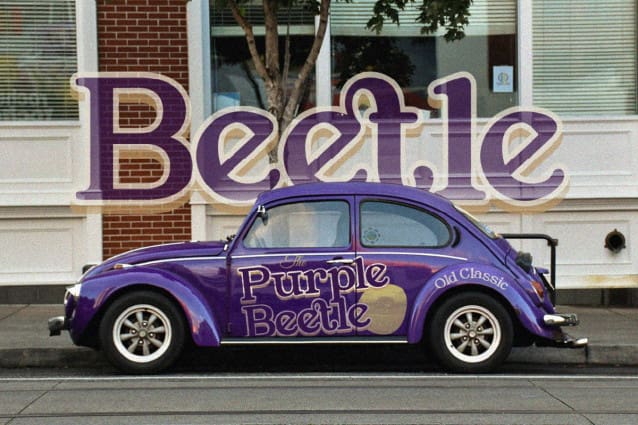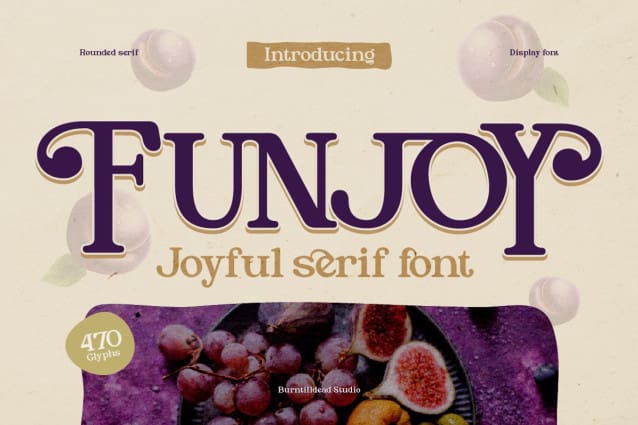
Funjoy Font
Funjoy Font! This font brings joyful and playful vibes. Funjoy combines a classic touch with a modern twist, making it ideal for any project that needs a fun and cheerful atmosphere. With alternates, ligatures, and multilingual support, this font stands out and is versatile for any project. Perfect for branding, logo design, packaging, restaurant menus, headlines, social media, and any project that needs a delightful and approachable feel.